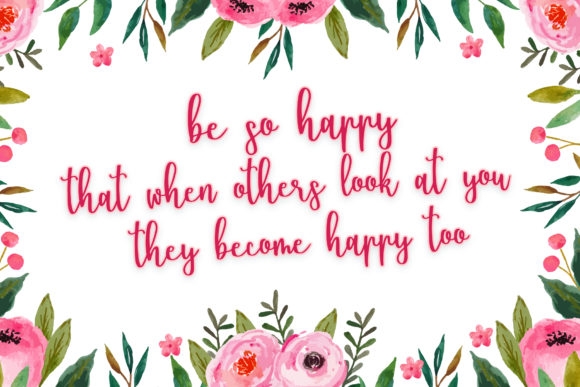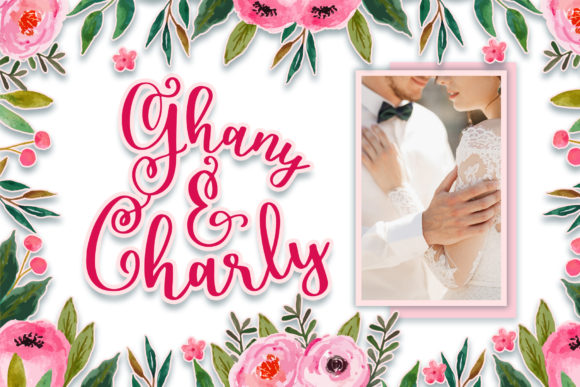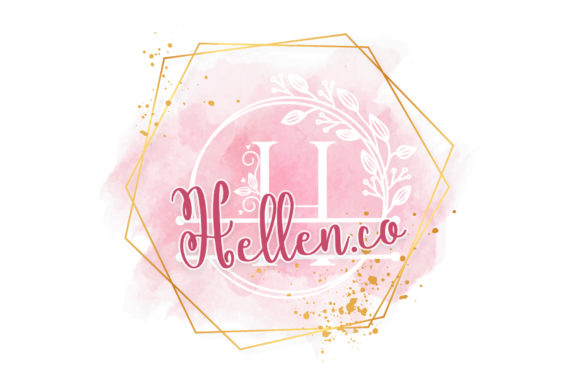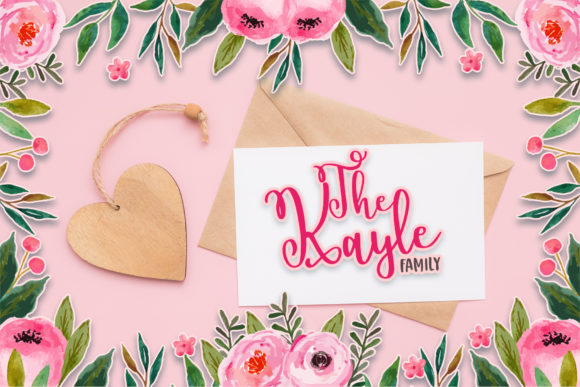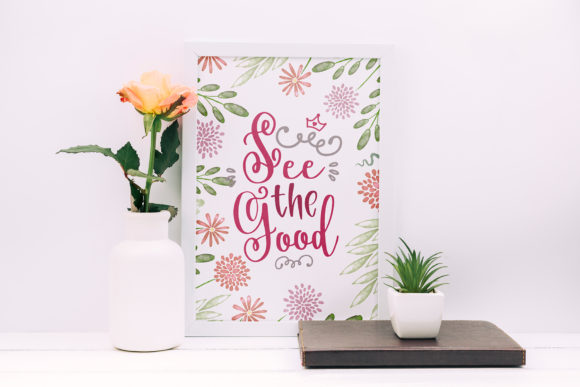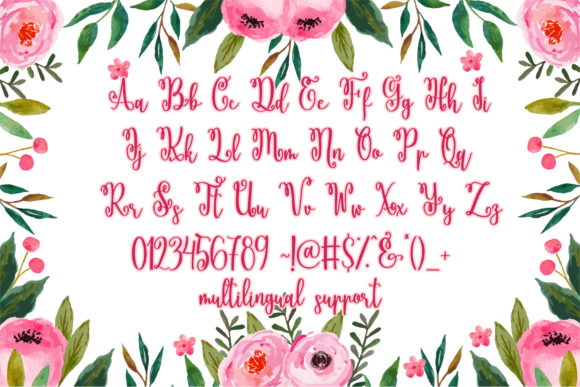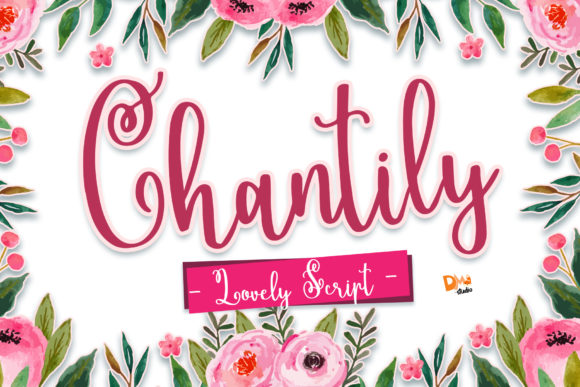
Introducing Chantily Font: Elevate Your Designs with Elegance and Charm
Are you a designer or crafter looking for a font that exudes elegance and sophistication? Look no further than Chantily Font. This stunning handwritten font is perfect for any design project that requires a touch of charm and refinement. In this article, we’ll dive into the world of Chantily Font, exploring its features, uses, and benefits, as well as provide tips on how to make the most of this beautiful font.
What is Chantily Font?
Chantily Font is a tall and elegant handwritten font, carefully crafted to bring a sense of luxury and sophistication to your designs. Its flowing lines, delicate curves, and refined strokes make it an ideal choice for projects that demand a high level of elegance. Whether you’re working on a logo, branding materials, or digital products, Chantily Font is sure to impress.
Key Features of Chantily Font
• Tall and Elegant: Chantily Font stands out with its tall and slender design, perfect for headlines, titles, and quotes.
• Handwritten: The font’s handwritten style adds a touch of warmth and personality to your designs.
• Charming Appearance: Chantily Font’s unique charm makes it perfect for projects that require a sense of whimsy and romance.
• Versatile: This font can be used for a wide range of design projects, from digital products to print materials.
Uses of Chantily Font
Chantily Font is an incredibly versatile font that can be used for various design projects, including:
• Logos and Branding: Create a lasting impression with a custom logo or branding materials that showcase your brand’s personality.
• Digital Products: Use Chantily Font to create stunning digital products, such as ebooks, workbooks, and planners.
• Print Materials: Add a touch of elegance to your print materials, including business cards, brochures, and posters.
• Social Media Graphics: Create eye-catching social media graphics that stand out from the crowd.
Benefits of Using Chantily Font
So, why choose Chantily Font for your design projects? Here are just a few benefits:
• Unique and Memorable: Chantily Font’s distinctive design ensures that your projects will stand out and be remembered.
• Elegant and Sophisticated: This font’s elegant design makes it perfect for projects that require a sense of luxury and refinement.
• Easy to Read: Despite its elegant design, Chantily Font is easy to read, making it perfect for body text and captions.
• Time-Saving: With Chantily Font, you can create stunning designs in no time, saving you hours of design time.
Tips for Using Chantily Font
To get the most out of Chantily Font, here are a few tips:
• Pair with a Sans-Serif Font: Pair Chantily Font with a sans-serif font for a striking contrast that adds visual interest.
• Experiment with Colors: Try out different colors and textures to add depth and dimension to your designs.
• Use for Headlines and Titles: Chantily Font is perfect for headlines and titles, so don’t be afraid to use it to make a statement.
• Keep it Simple: Don’t over-accessorize your design – keep it simple and let Chantily Font shine.
In conclusion, Chantily Font is a stunning handwritten font that can elevate your designs to new heights. Its elegant design, charming appearance, and versatility make it perfect for a wide range of design projects. Whether you’re a designer, crafter, or DIY enthusiast, Chantily Font is sure to become a favorite in your toolkit. So why wait? Download Chantily Font today and start creating stunning designs that will leave a lasting impression!